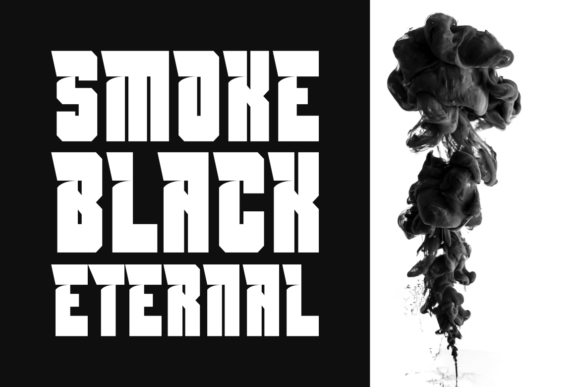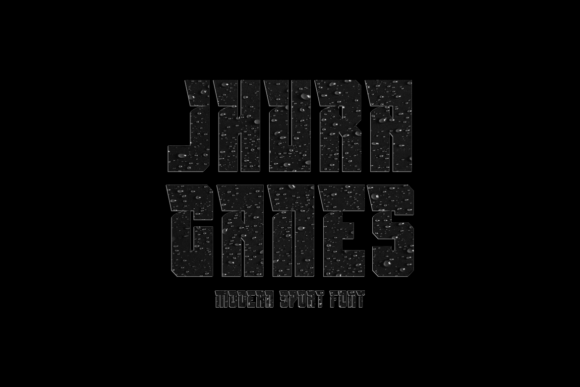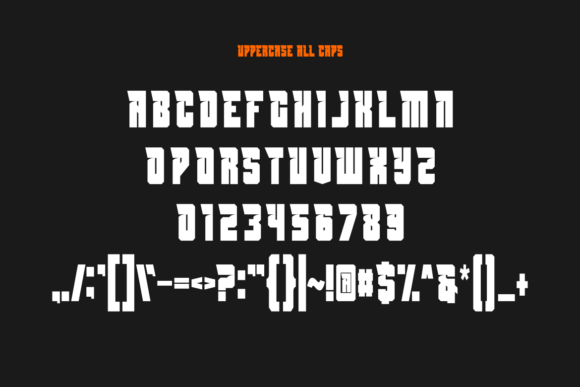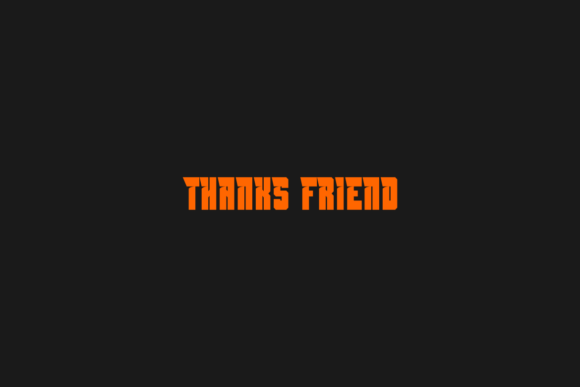
Have you ever stared at a blank canvas, struggling to find the right words to bring your creative vision to life? It’s a feeling we’ve all experienced, but with the right tools, it can become a thing of the past. That’s where the Jhuraganes Font comes in – a modern and bold display font designed to make your headlines, posters, and logos truly stand out.
As a designer, you know how important it is to have high-quality fonts at your disposal. And with the Jhuraganes Font, you can trust that you’re getting a design resource that’s both visually stunning and easy to read. With its thick, clear letters and transparent background, this font is perfect for any creative project that demands attention.
Key Features of Jhuraganes Font
- High-quality typography with precise letterforms and subtle nuances, making it ideal for creative projects.
- Designed with a unique aesthetic, featuring a mix of modern and vintage elements, perfect for adding a touch of personality to creative projects.
- Part of a larger font family, offering a range of styles and weights to suit different design needs.
Honest Review: Jhuraganes Font
I recently stumbled upon the Jhuraganes Font, and I must say it’s a solid addition to any designer’s toolkit. As a design enthusiast, I appreciate fonts that offer a unique twist without compromising on quality.
- What works well: ✨ The font is clean and legible, making it perfect for body text or headings. It’s also highly versatile, suitable for various design projects.
- What works well: ✨ The transparent background allows for seamless layering and editing, which is a huge plus for designers.
- ⚠️ The font may not be ideal for complex, multi-line text due to its simple design.
- ⚠️ Some users may find the font too minimalist, which could limit its use in certain creative projects.
Overall, I’m impressed with the Jhuraganes Font. Its high quality and free download make it a valuable design resource. While it may not be perfect for every project, it’s definitely worth adding to your collection. I’m looking forward to incorporating it into my next creative project.
Tips for Getting the Most Out of Jhuraganes Font
To maximize the use of the Jhuraganes Font, consider the following tips:
– Experiment with different font sizes and colors to create visually appealing designs.
– Combine the Jhuraganes Font with other design elements to create a unique visual identity.
Common Use Cases for Jhuraganes Font
The Jhuraganes Font is suitable for a wide range of creative projects, including:
– Business cards
– Brochures
– Infographics
Alternatives to Jhuraganes Font